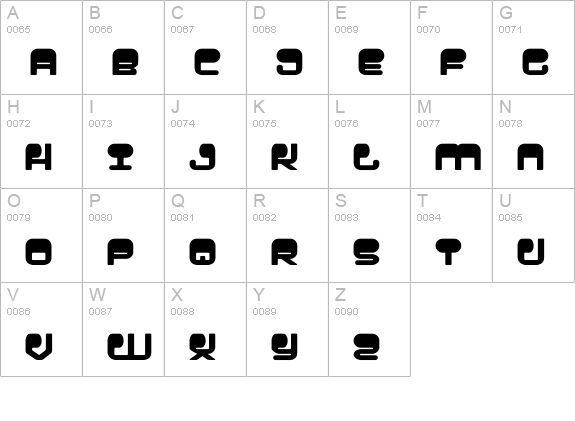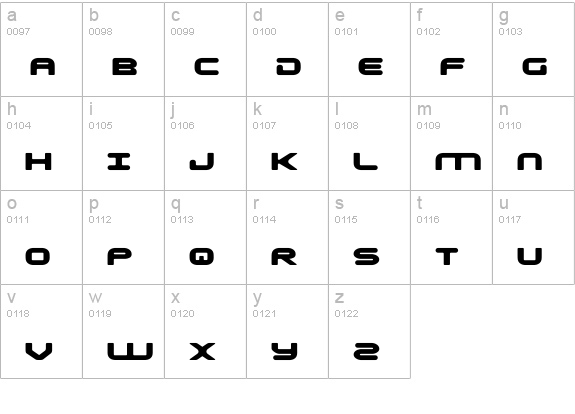
The HYPNO Agent font is a mesmerizing and captivating typeface that will draw your audience in with its unique and striking design. Its sleek lines and futuristic style make it perfect for a wide range of projects, from branding to advertising to social media graphics. What's even better is that the HYPNO Agent font is available for free download at FontsMarket.com. Yes, you read that right - you can get your hands on this amazing font without spending a dime. So why wait? Add a touch of hypnotic charm to your designs today with the HYPNO Agent font.